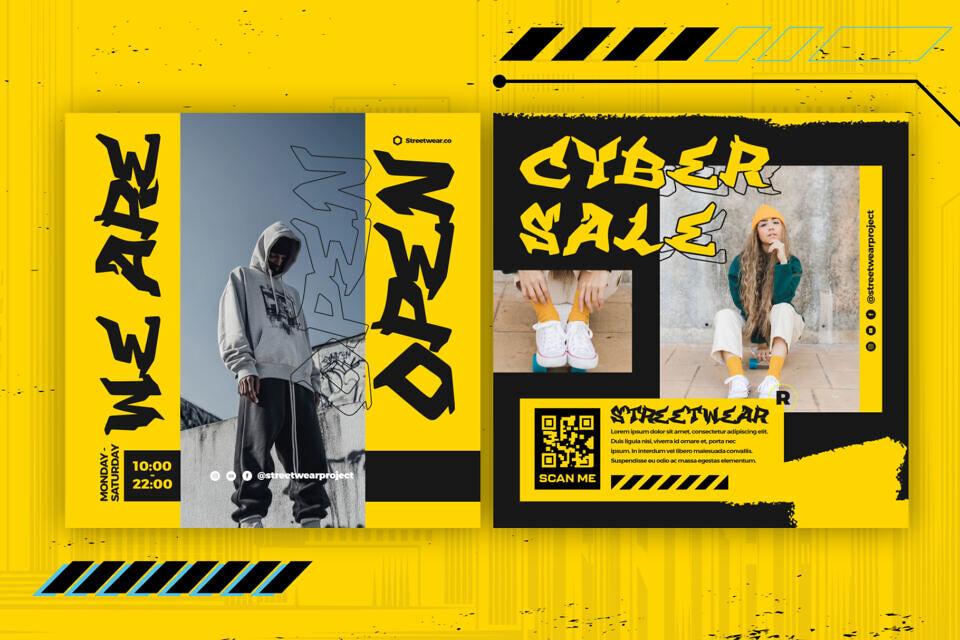
Aero Vault Font
Aero Vault is a striking fusion of cyberpunk futuristic design and authentic street energy. Created by Cikareotype Studio, this bold typeface combines sharp cyberpunk geometry with expressive graffiti flair.
Perfect for posters, gaming logos, apparel, and album covers, Aero Vault delivers power, motion, and modern edge. Featuring uppercase letters and multilingual support, it ensures flawless performance across print and digital platforms.
Aero Vault offers two unique styles for combinations: regular and outline.